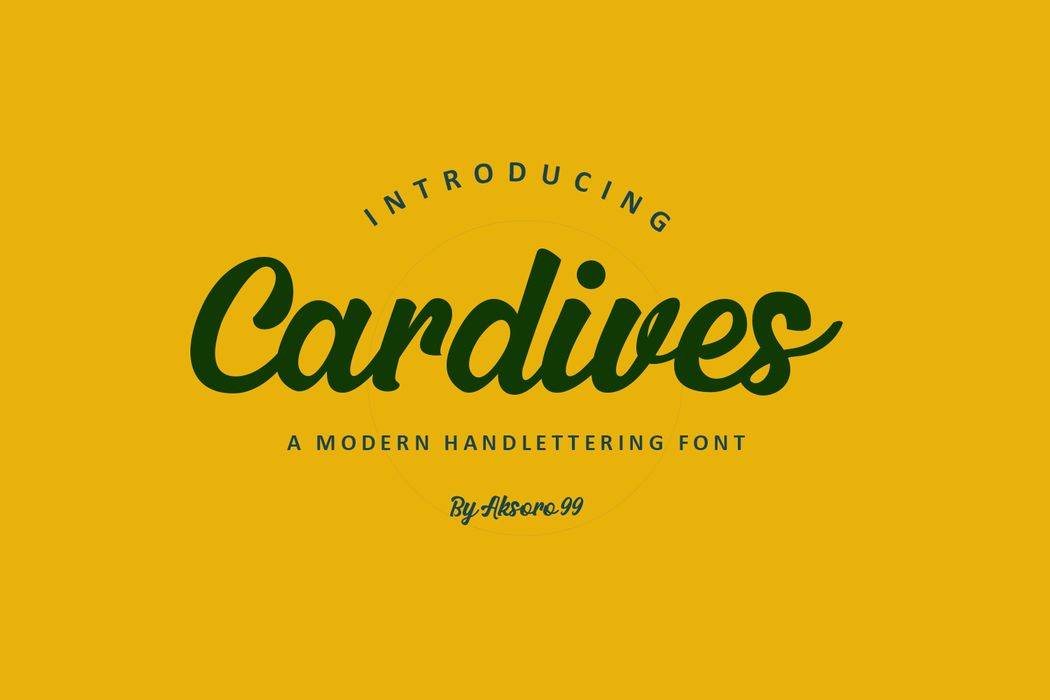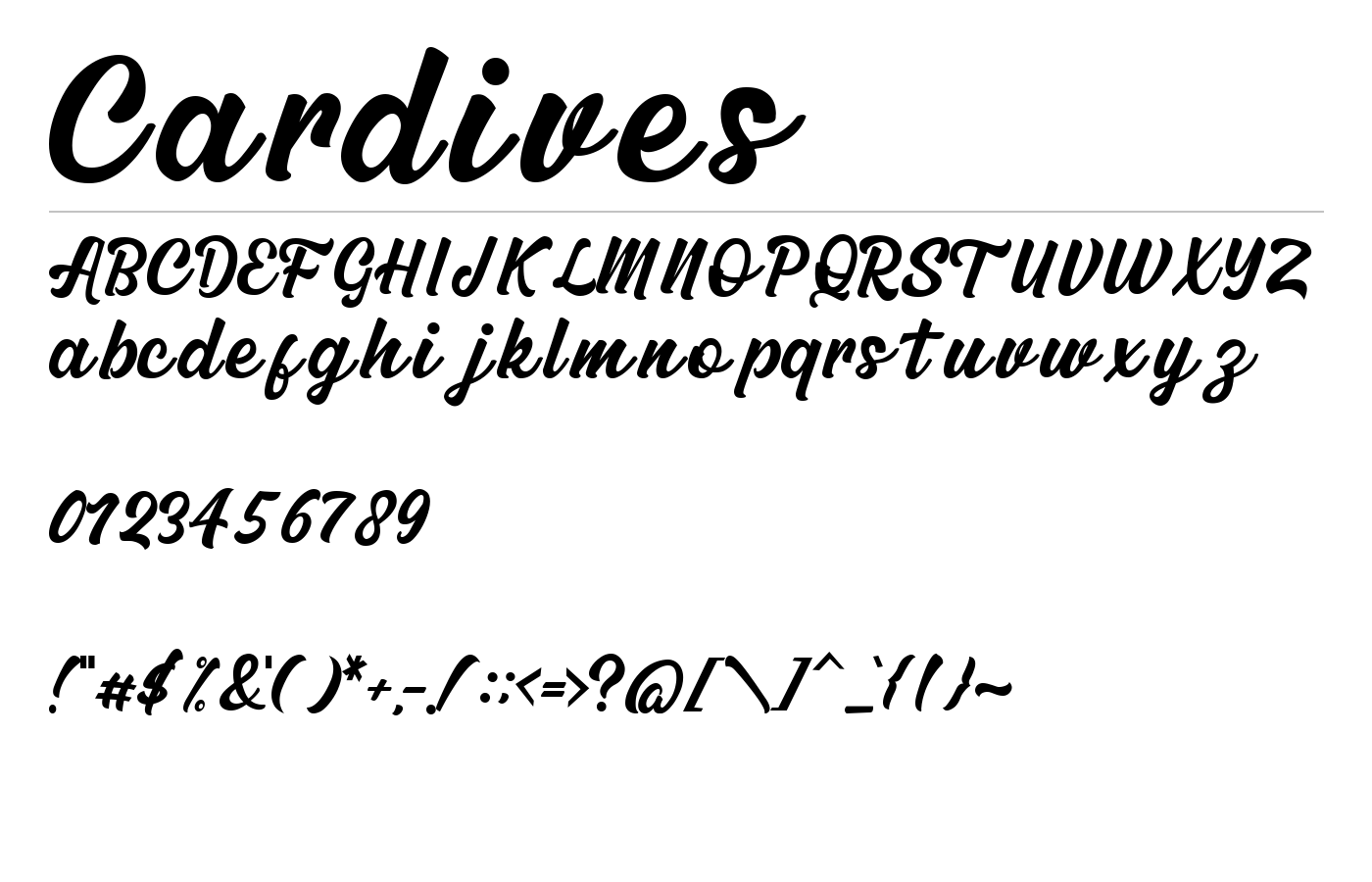
Cardives is a stylish script font with a smooth, flowing design that combines a casual yet elegant feel. Its medium weight and slightly condensed letterforms give it a refined look, making it perfect for branding, invitations, and headlines where a personal, handcrafted touch is desired. This font works well for creative and feminine projects, adding charm and warmth without sacrificing readability.
Cardives Font
About Cardives Font
| Font family | Cardives Font |
| Designer | Wahyu Nugroho |